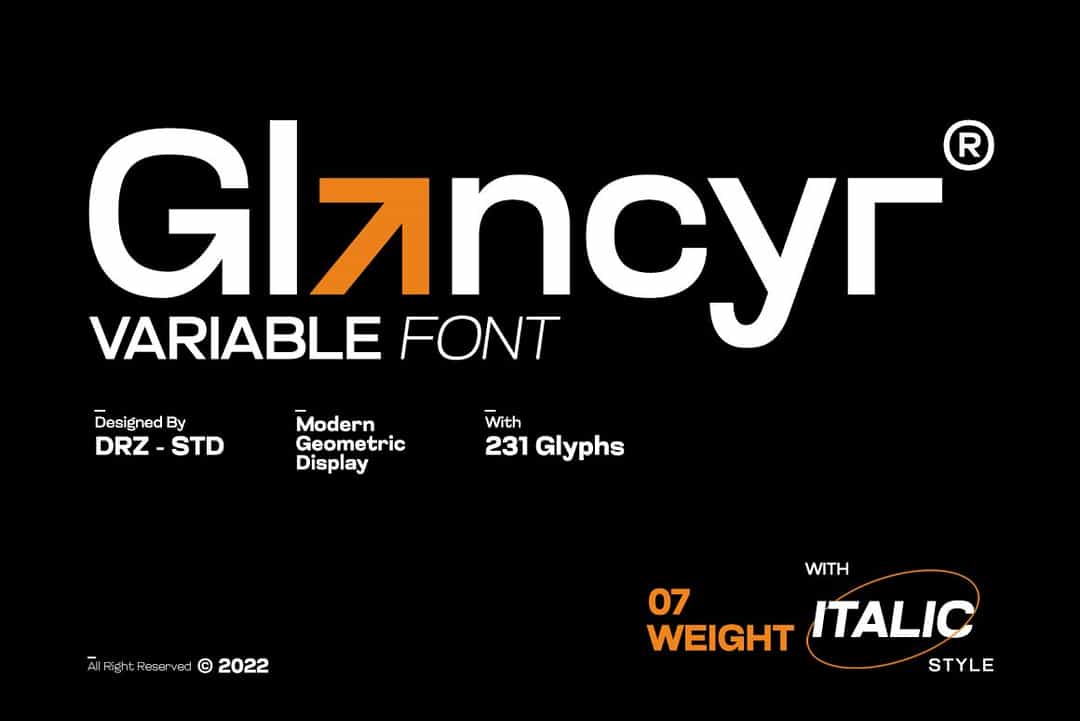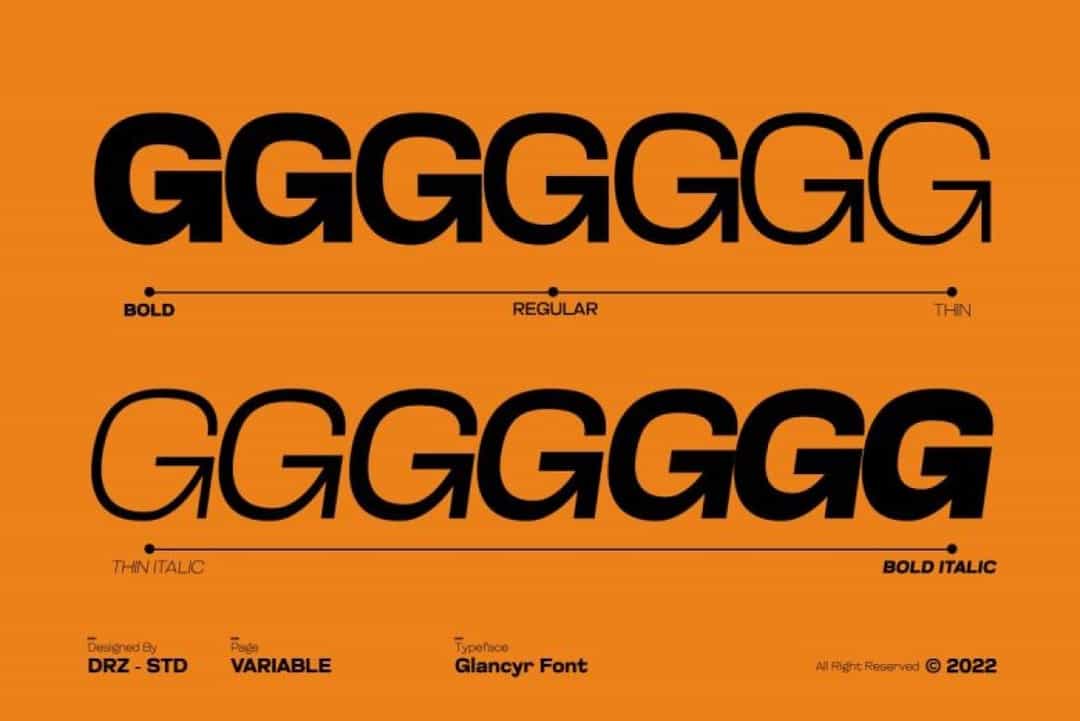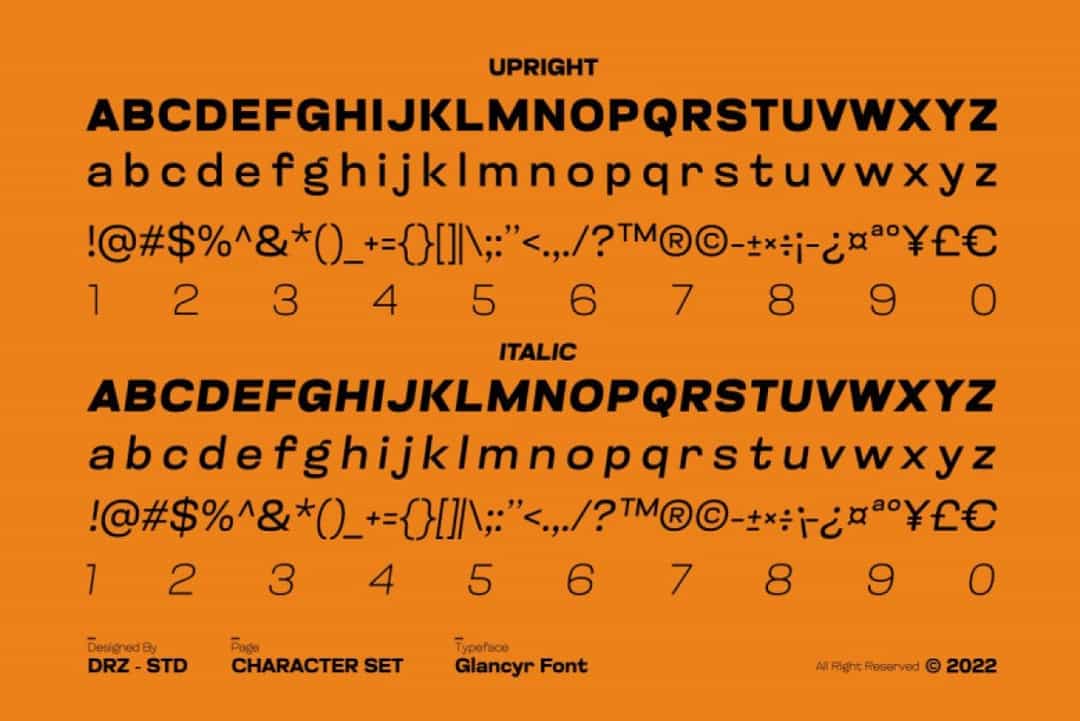
Glancyr, created by Drizy Studio, is a Modern Geometric Sans Serif Font, providing designers with all of the styles needed for their designs. Features of Glancyr include Up Right & Italic Punctuation Numbers Multilingual Support Ligatures Alternates.